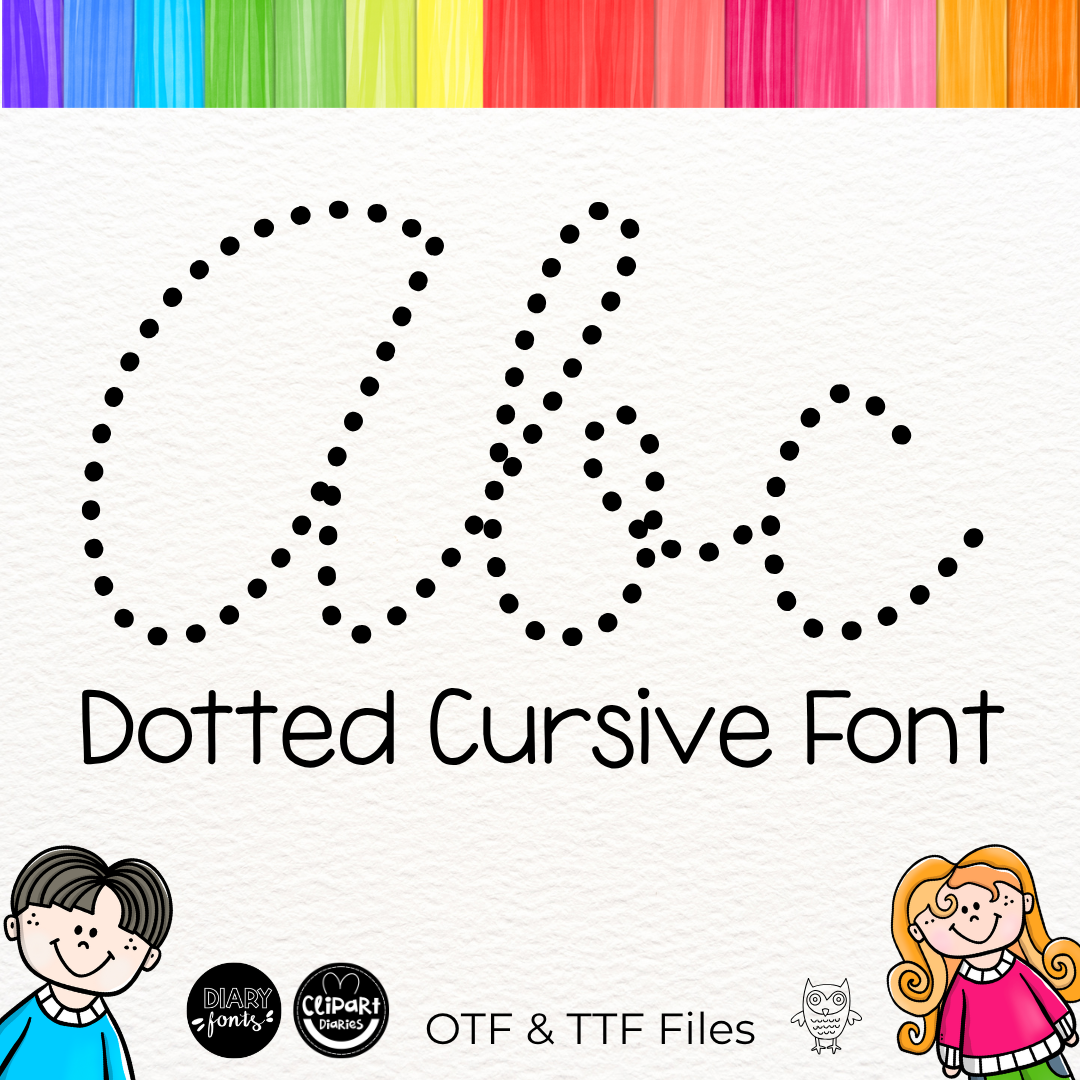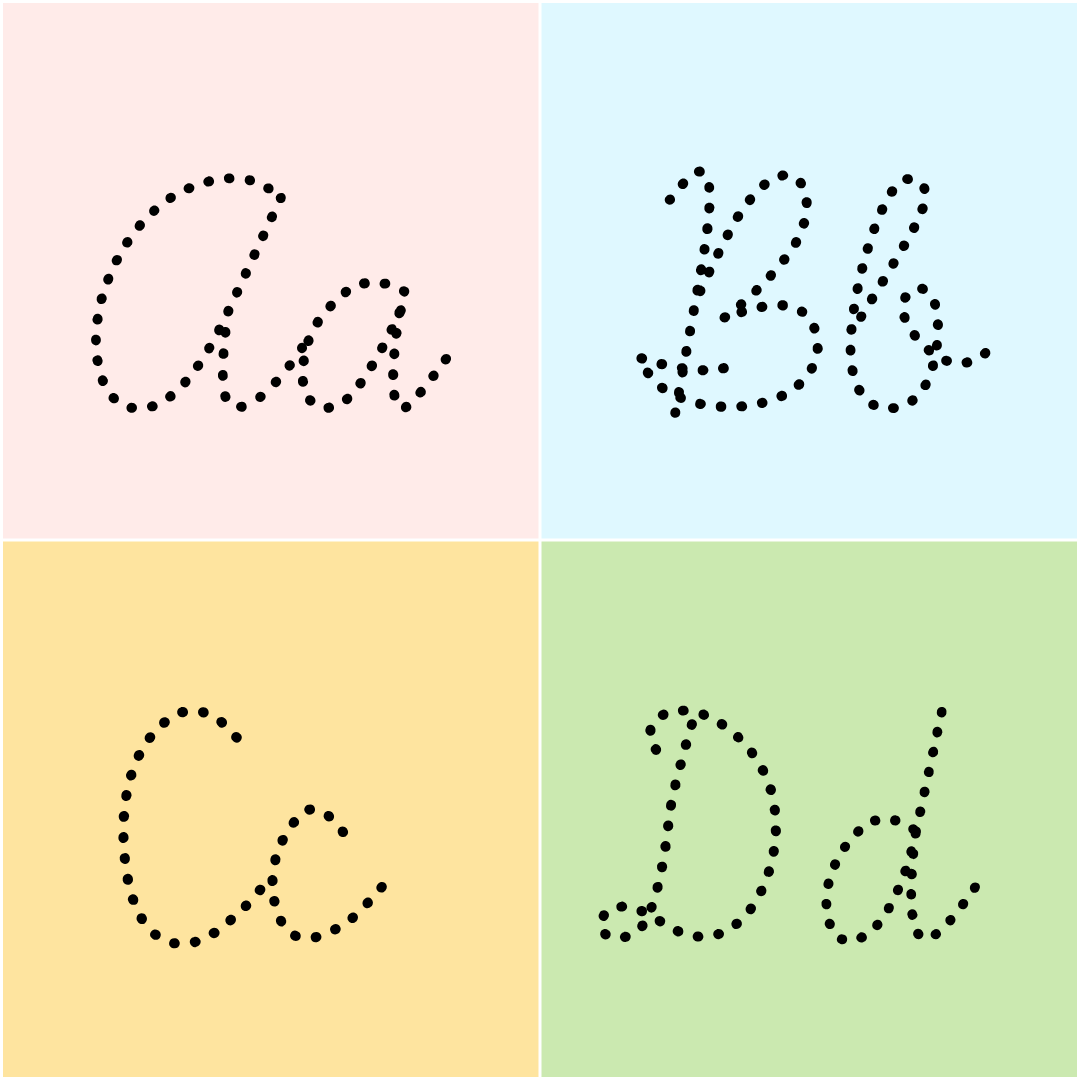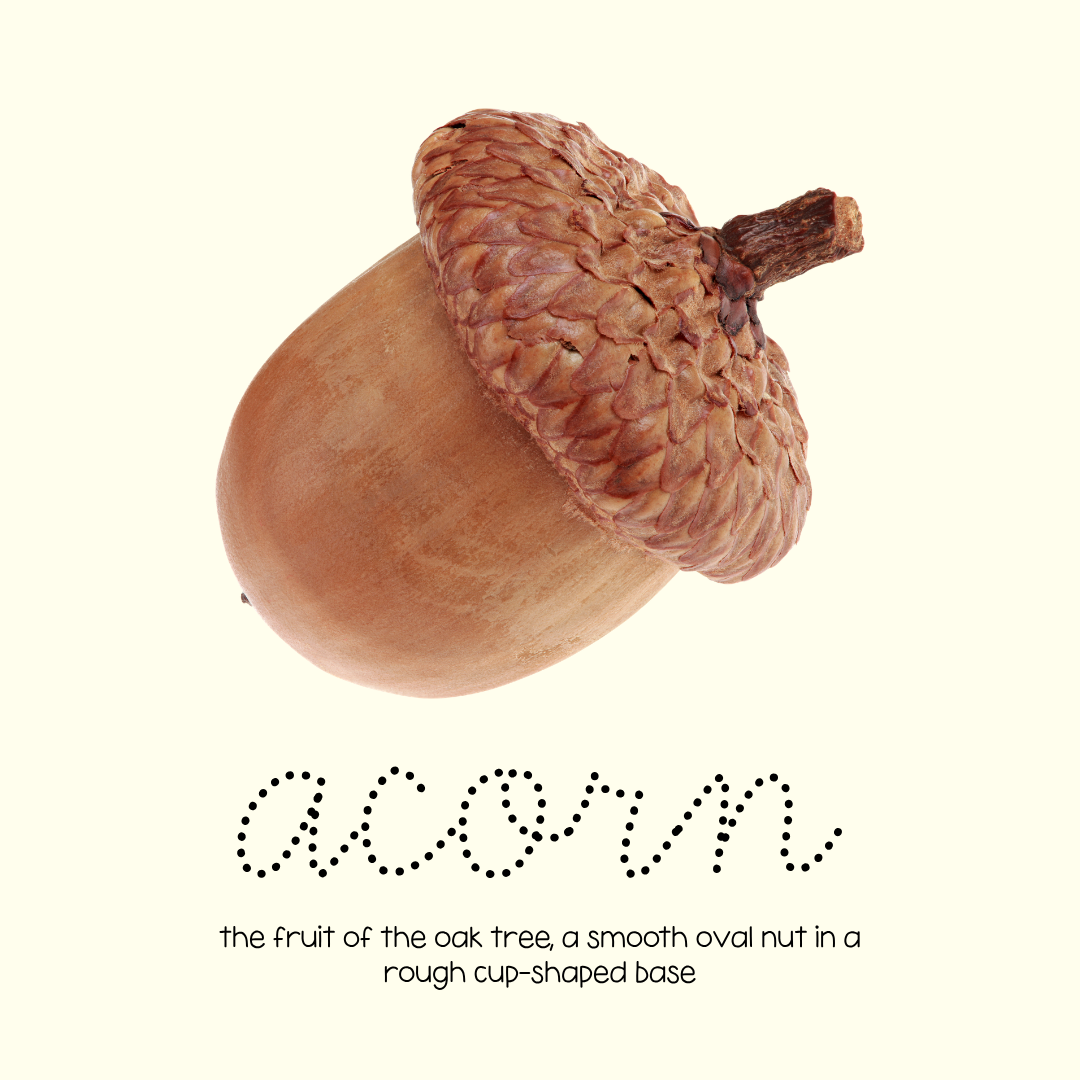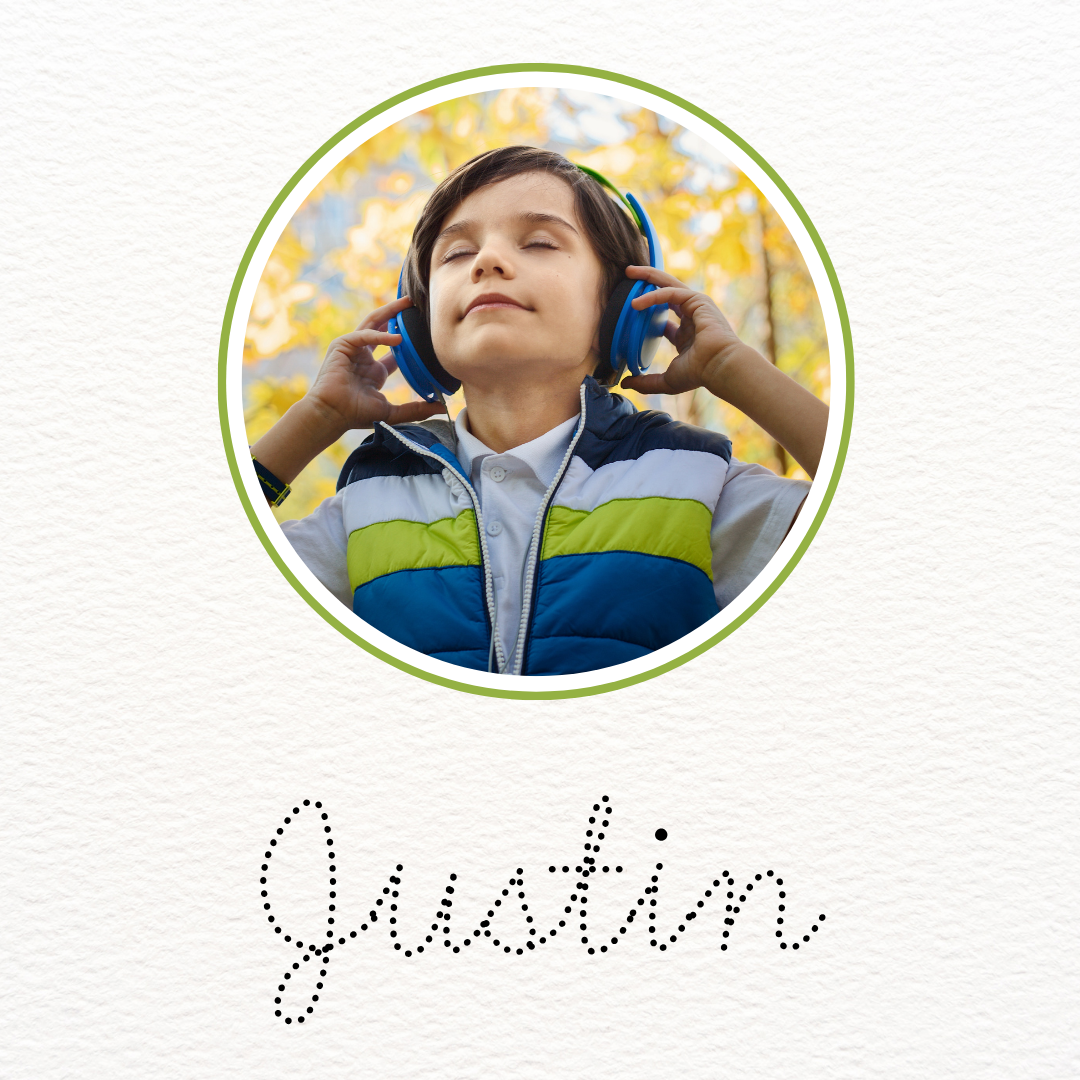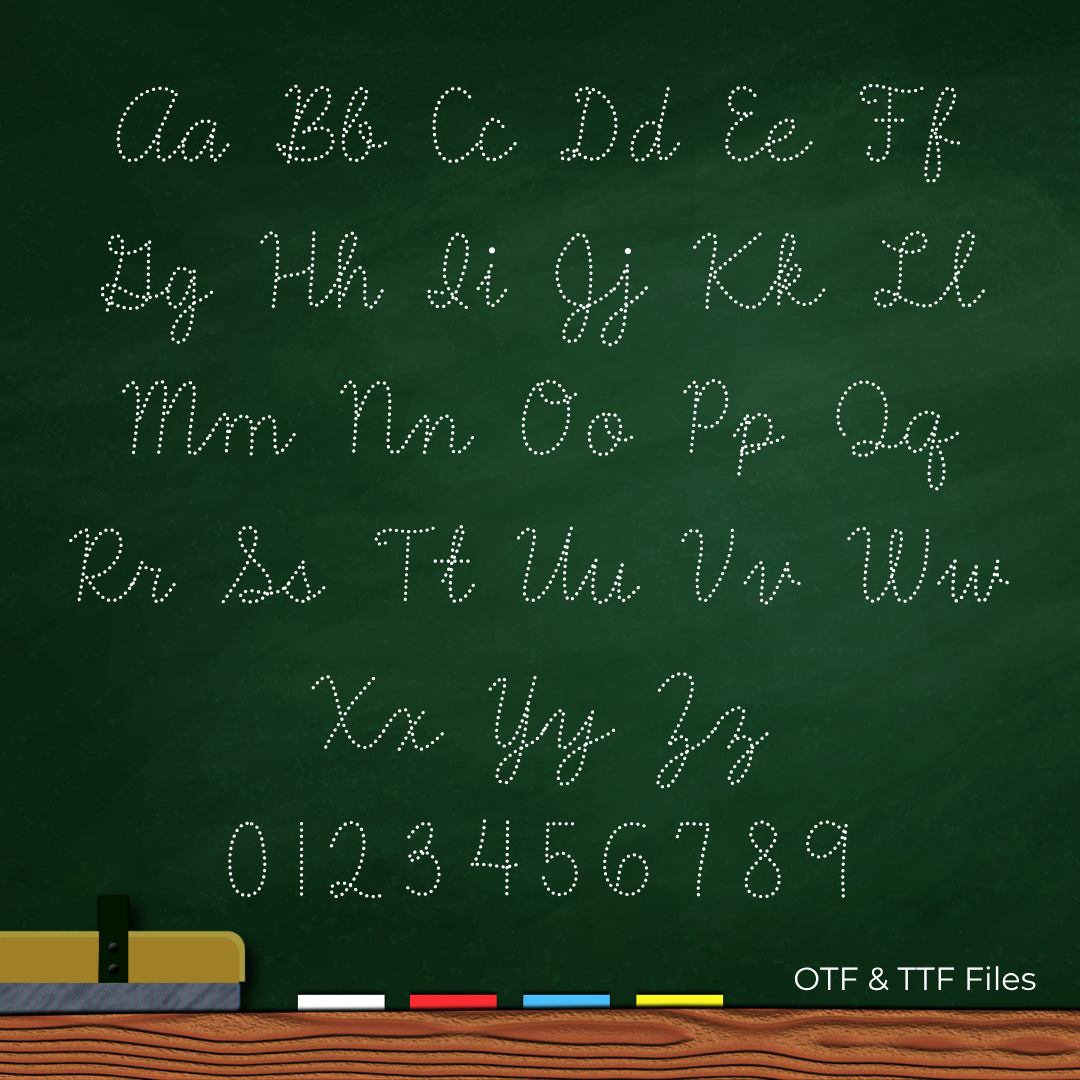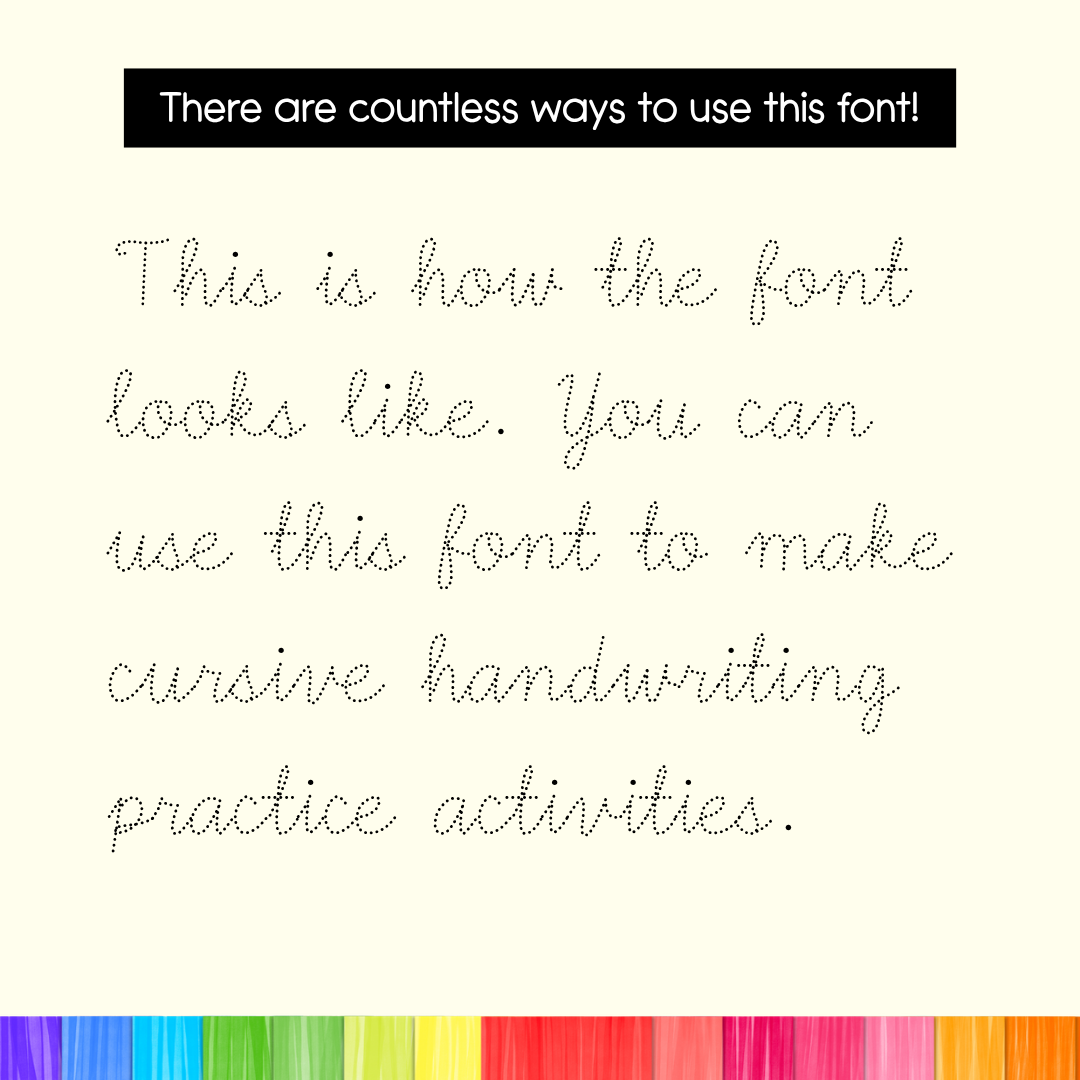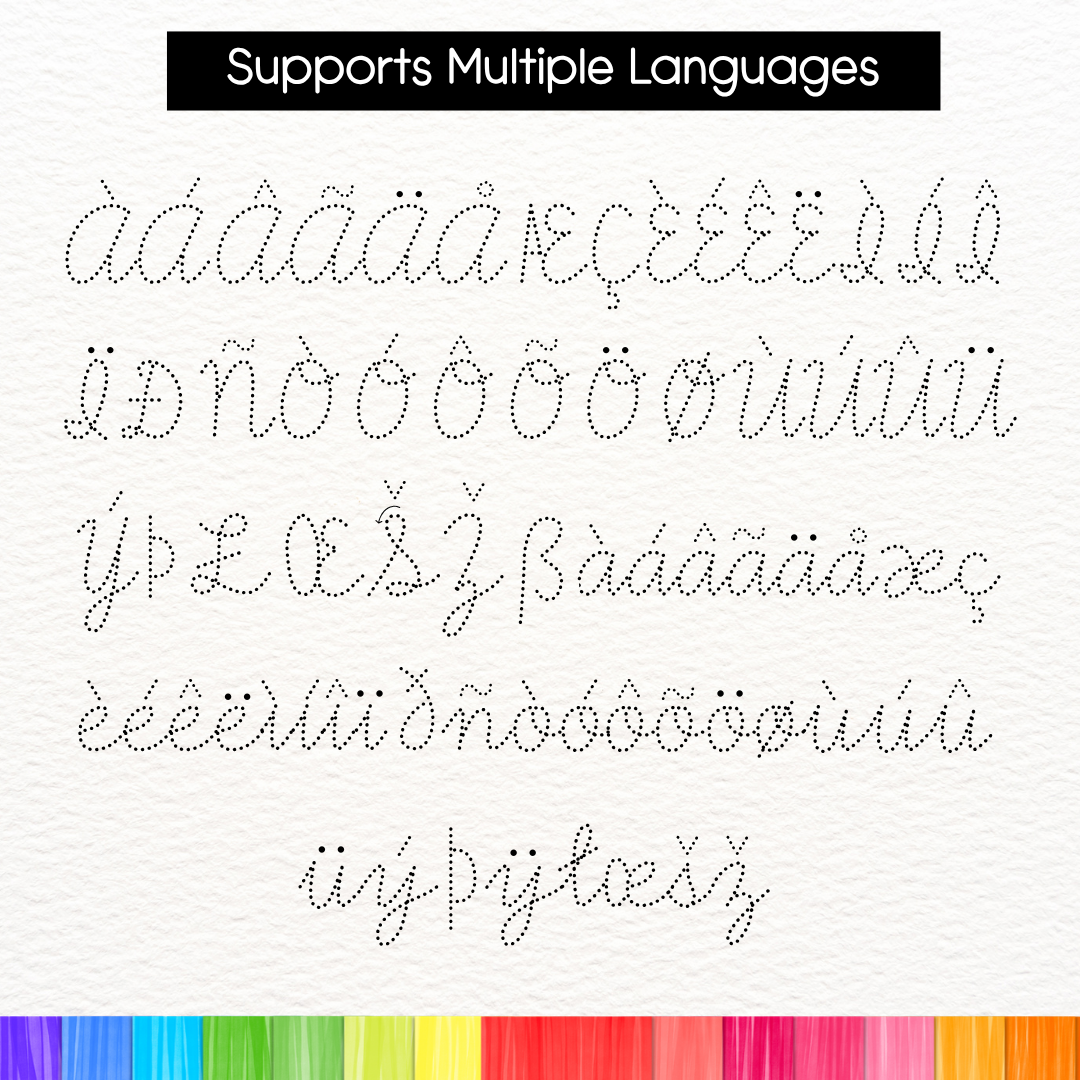
Cursive Dotted Font for Handwriting Practice or Tracing Activities – Personal and Commercial Use – Diary Cursive Dots
This cursive handwriting font has dotted letters to help students practice writing cursive letters. You can use this tracing font to create handwriting worksheets, alphabet posters, classroom décor, and other resources. The font is suitable for both personal and commercial projects.
This font also supports multiple accents and languages.